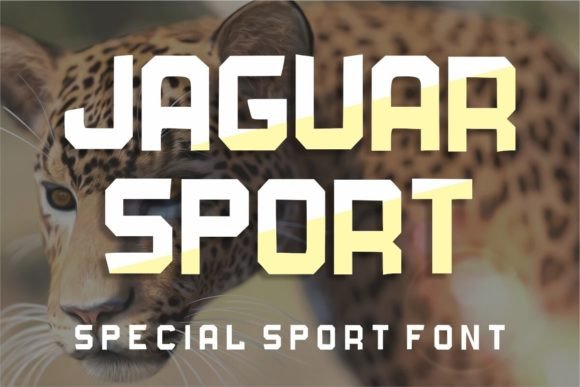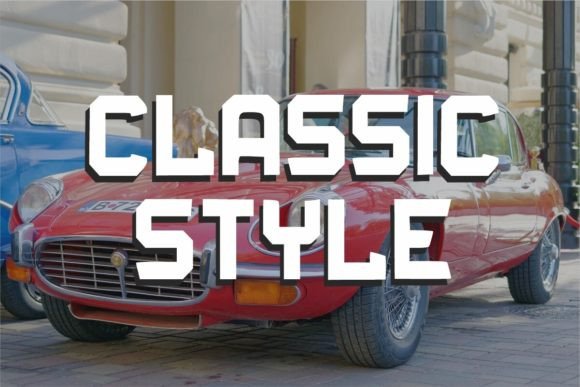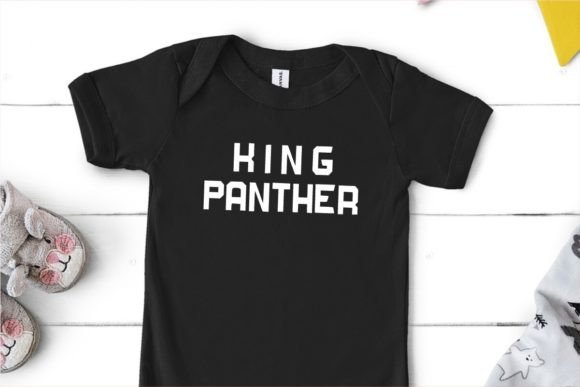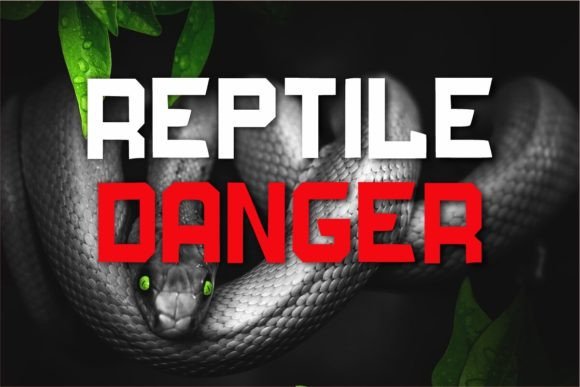
Jaguar Sport Font
About the Jaguar Sport Font
Introducing the Jaguar Sport Font, a beautifully crafted typeface designed to elevate your creative projects. Jaguar Sport is a dynamic and modern sport font designed to capture the spirit of athleticism and energy. With its bold and sleek letterforms, Forenight brings a sense of power and movement to your sports-related designs. Inspired by the speed and intensity of athletic events, this font is perfect for sports team logos, jerseys, posters, and any design that aims to convey a sense of strength and competitiveness.
Jaguar Sport excels in headlines, logos, and short, impactful phrases where its bold strokes command attention. It’s ideal for branding materials that need to project power and dynamism, such as sportswear brands, athletic events, or automotive advertising. However, its strong character makes it unsuitable for body text or lengthy paragraphs; readability suffers at smaller sizes.
Consider pairing Jaguar Sport with a clean sans-serif like Open Sans for body copy to create contrast and balance. For a more sophisticated feel, a classic serif like Garamond could be used for supporting text. Alternatively, a geometric sans-serif such as Futura would complement its modern energy.
The overall personality of Jaguar Sport is bold, assertive, and modern, conveying speed and high-performance. It’s best suited for projects and brands targeting a youthful, active audience seeking strength and dynamism.
Jaguar Sport Font Usage Examples
Jaguar Sport Font Example